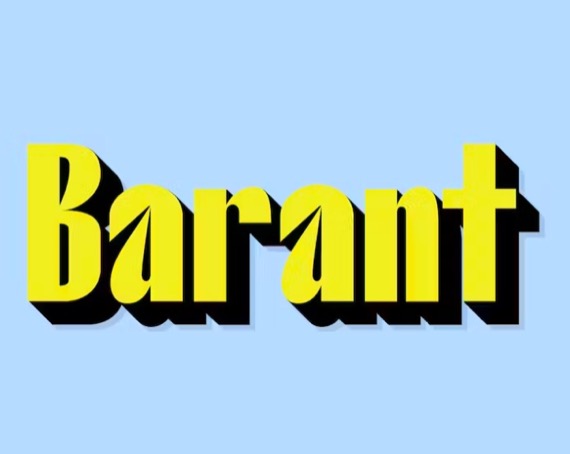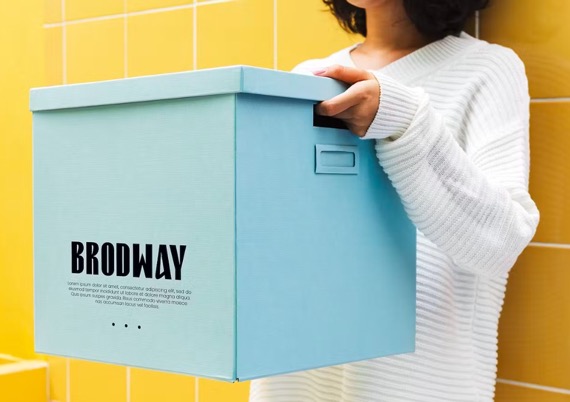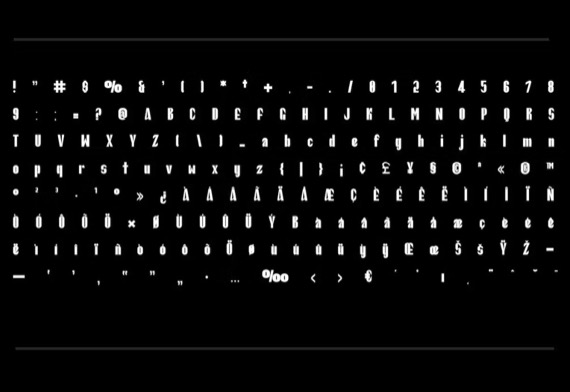
Introducing the next generation typeface from Barant Display. The Barant typeface was created with the aim of attracting the audience to your brand. The finer details of this typeface are created methodically and mathematically. Barant is created with all the functions of a corporate font and can also be used in various projects including branding, logos, titles, posters, screens, display, digital advertisements, etc.
Barant Decorative Font